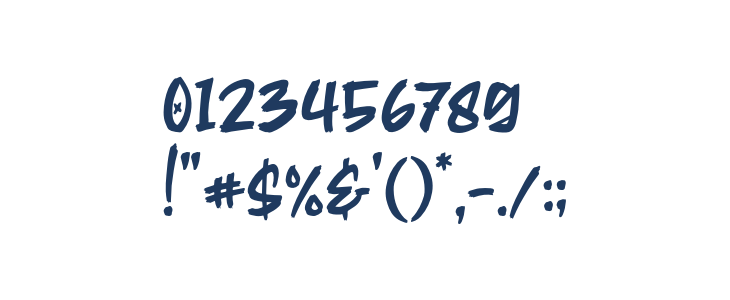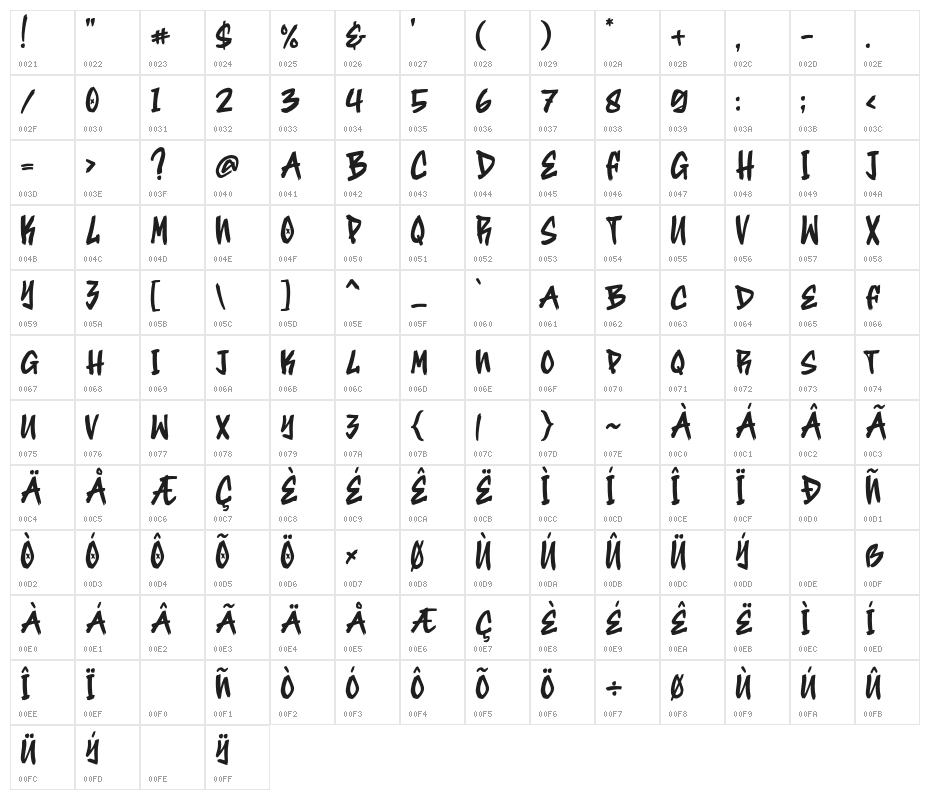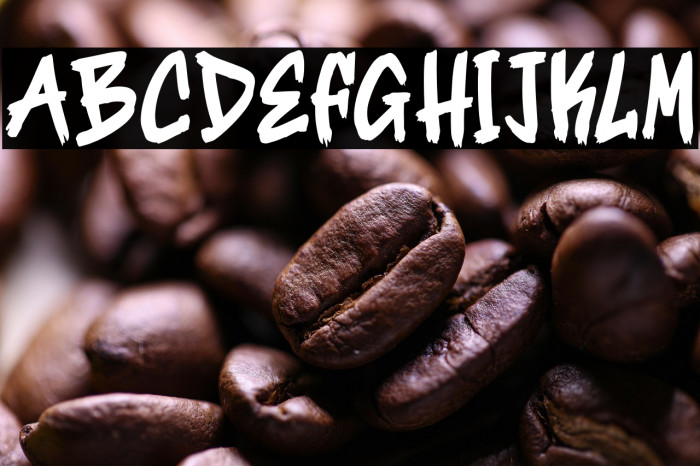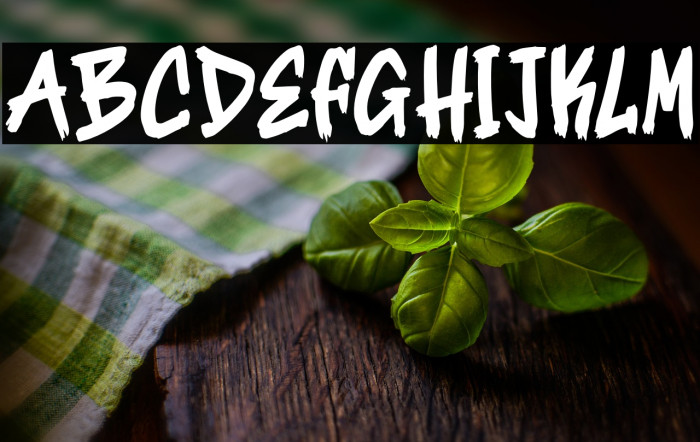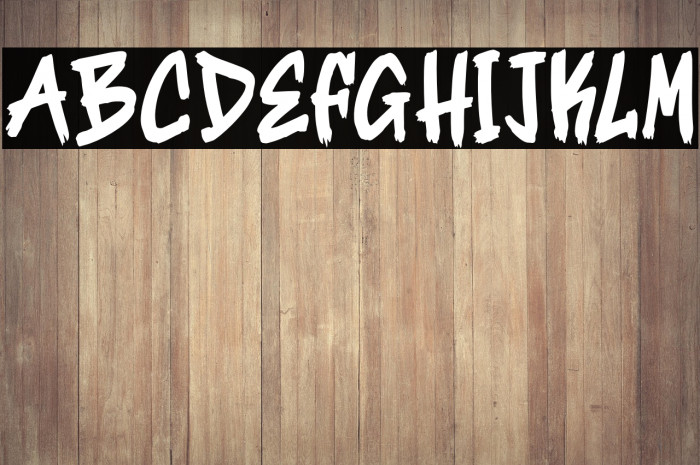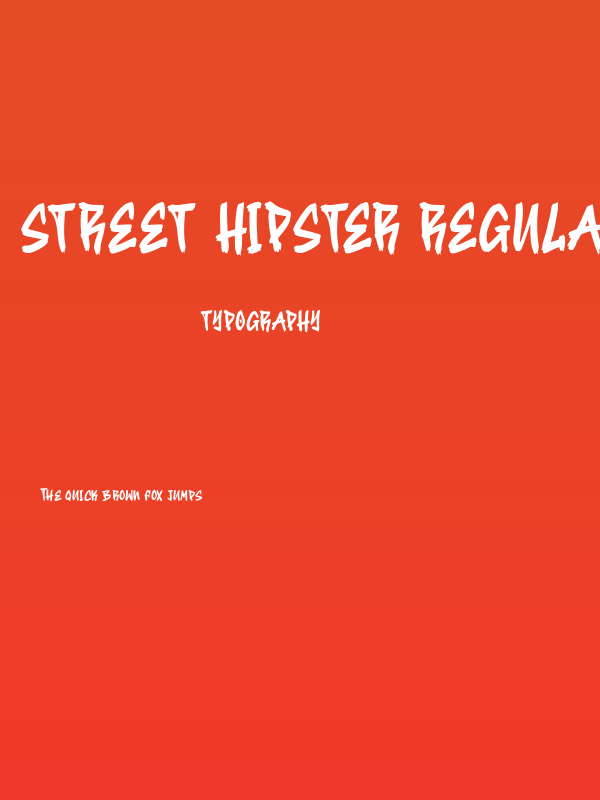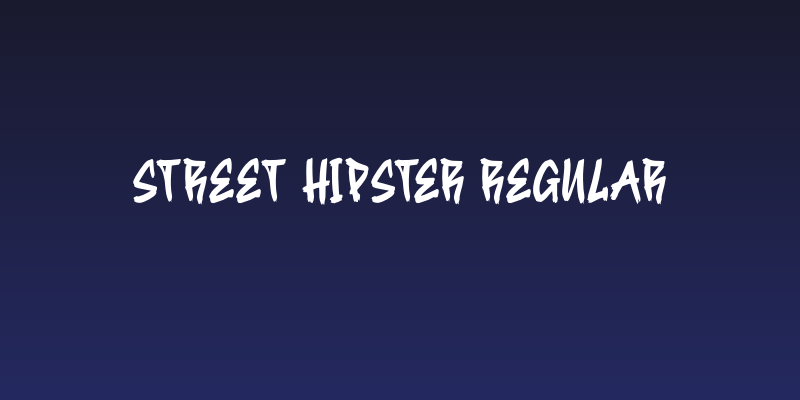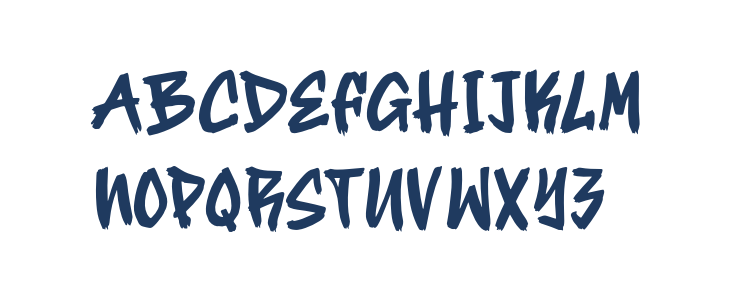
Street Hipster Regular Font
Street Hipster Regular Description
This font features a bold, energetic style with a hand-drawn appearance, characterized by its thick strokes and irregular edges. The letters have a dynamic, slightly chaotic feel, reminiscent of street art or graffiti. The uppercase and lowercase letters maintain a consistent style, with exaggerated curves and angles that give them a unique, artistic flair. Numbers and special characters follow the same design principles, ensuring a cohesive look across all glyphs. The font's playful and rebellious nature makes it stand out, perfect for projects that require a bold statement.
| Overall Style | Modern, Urban |
| Proposed Projects | Ideal for posters, album covers, urban-themed designs, and branding that seeks to convey a youthful, edgy aesthetic. |